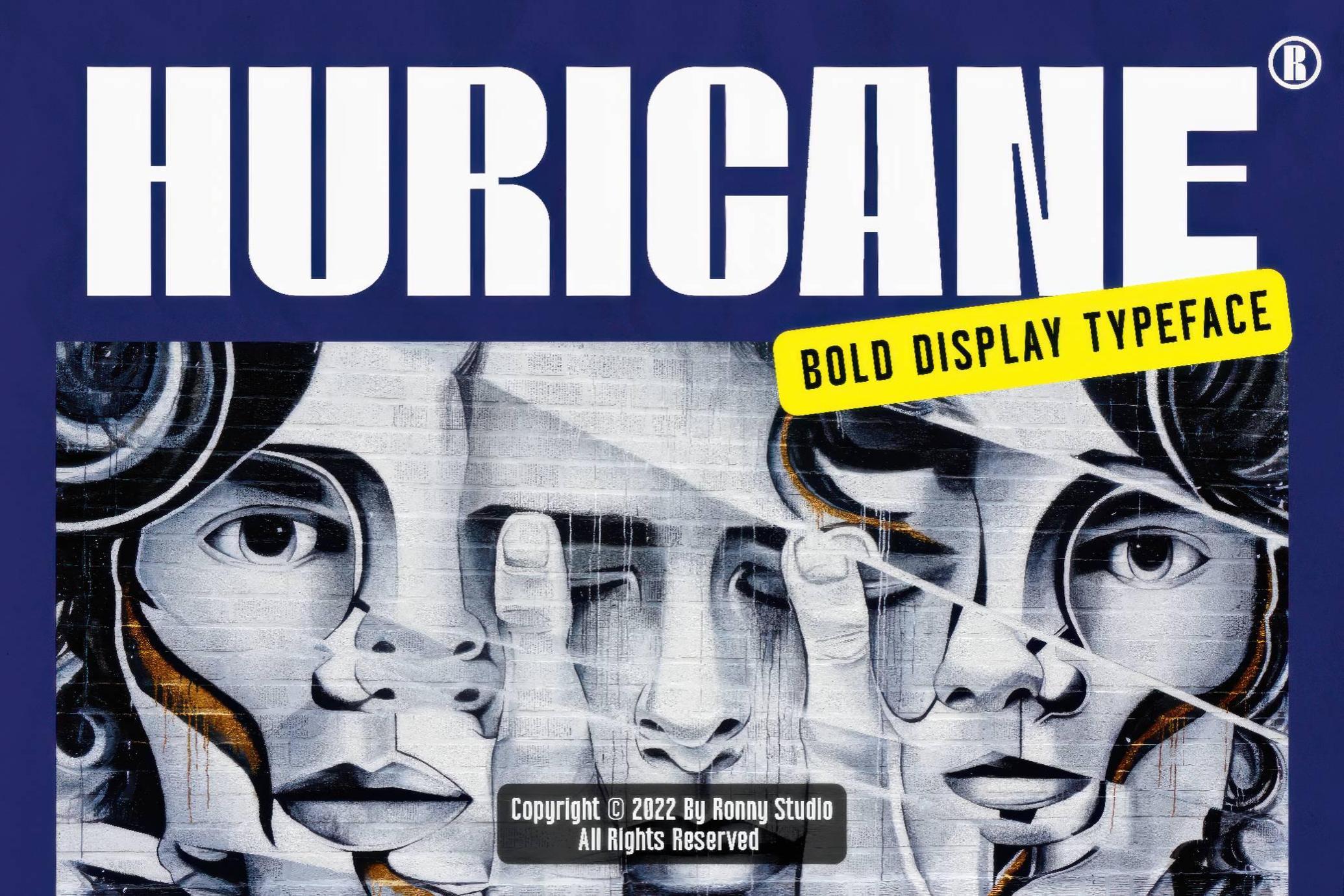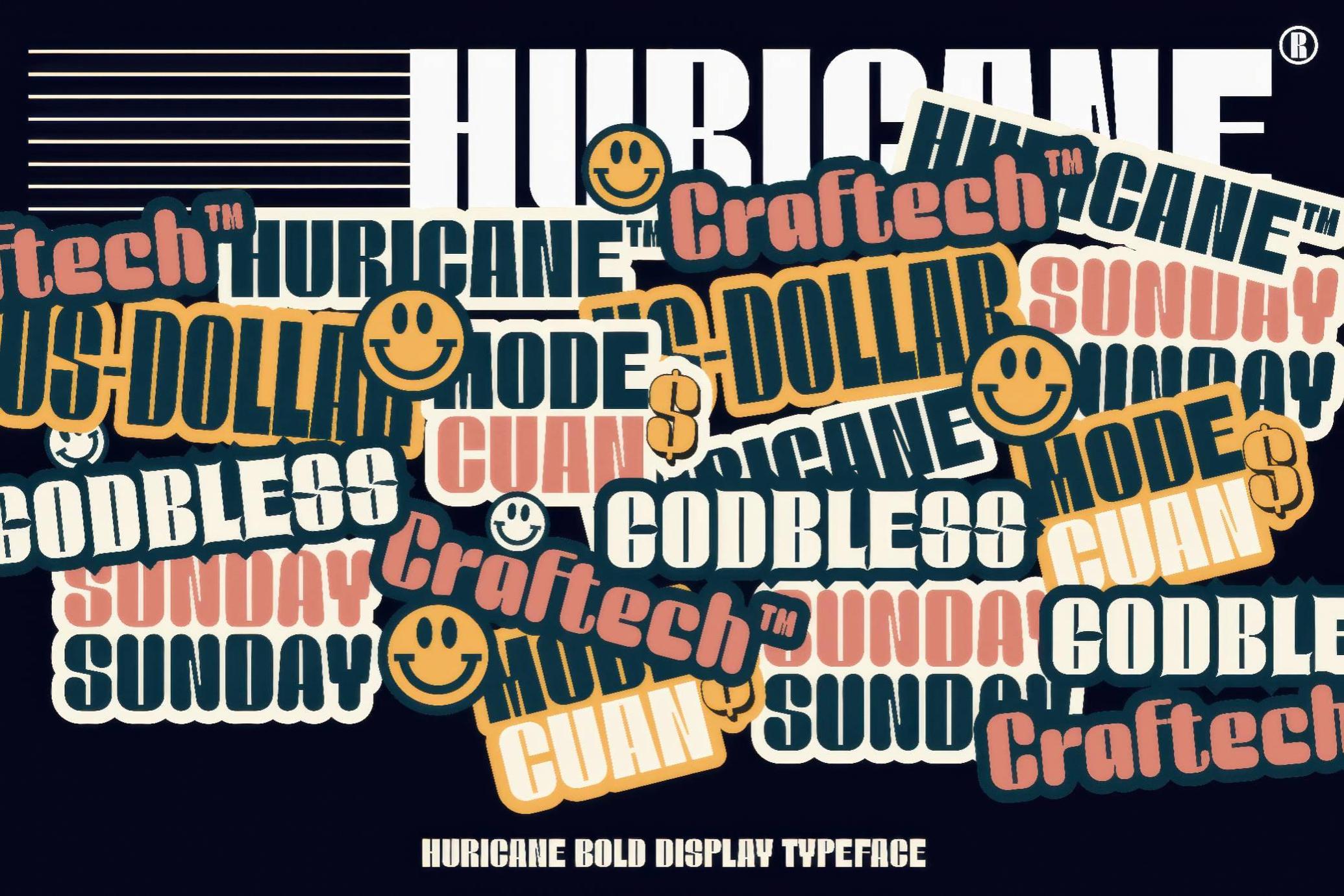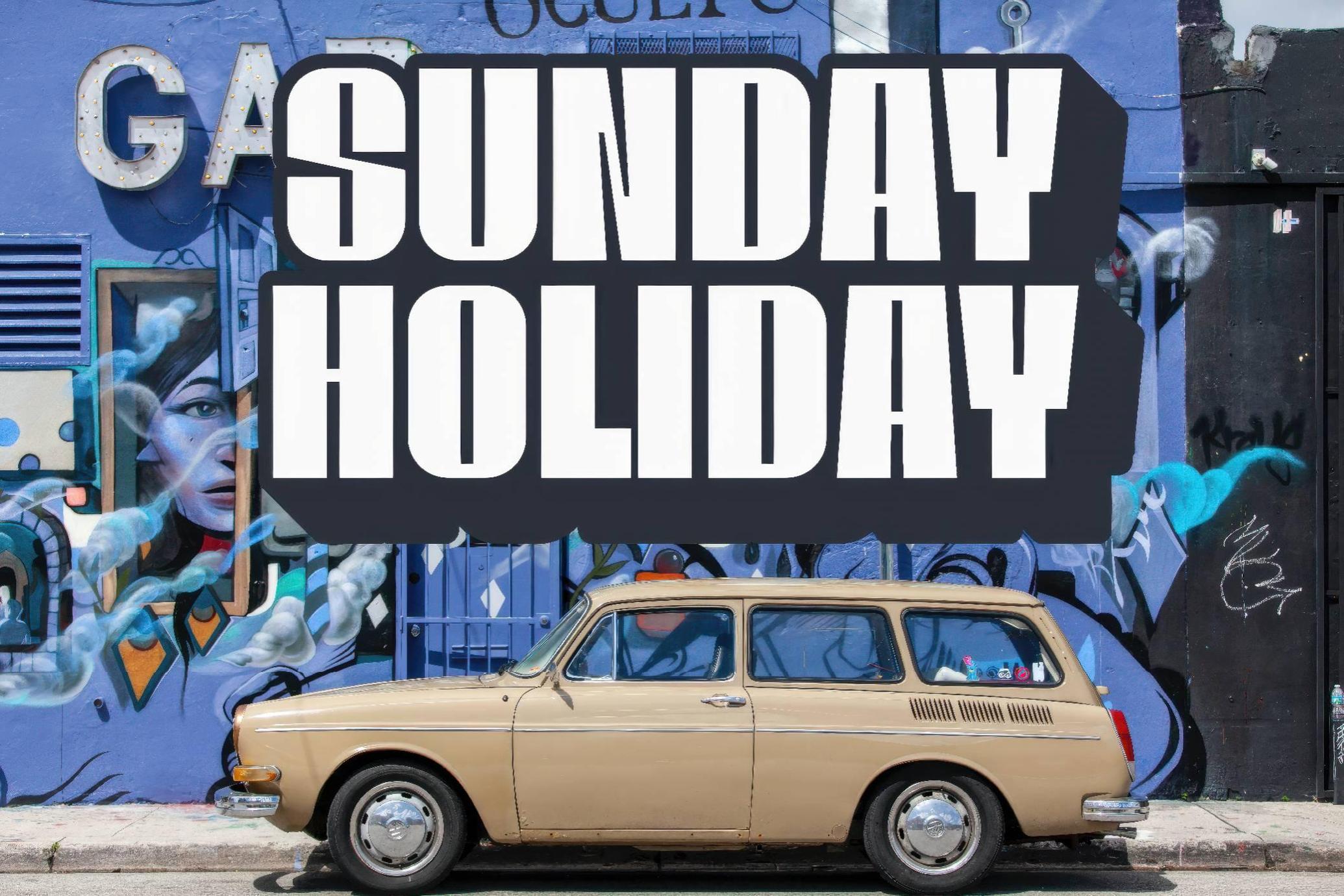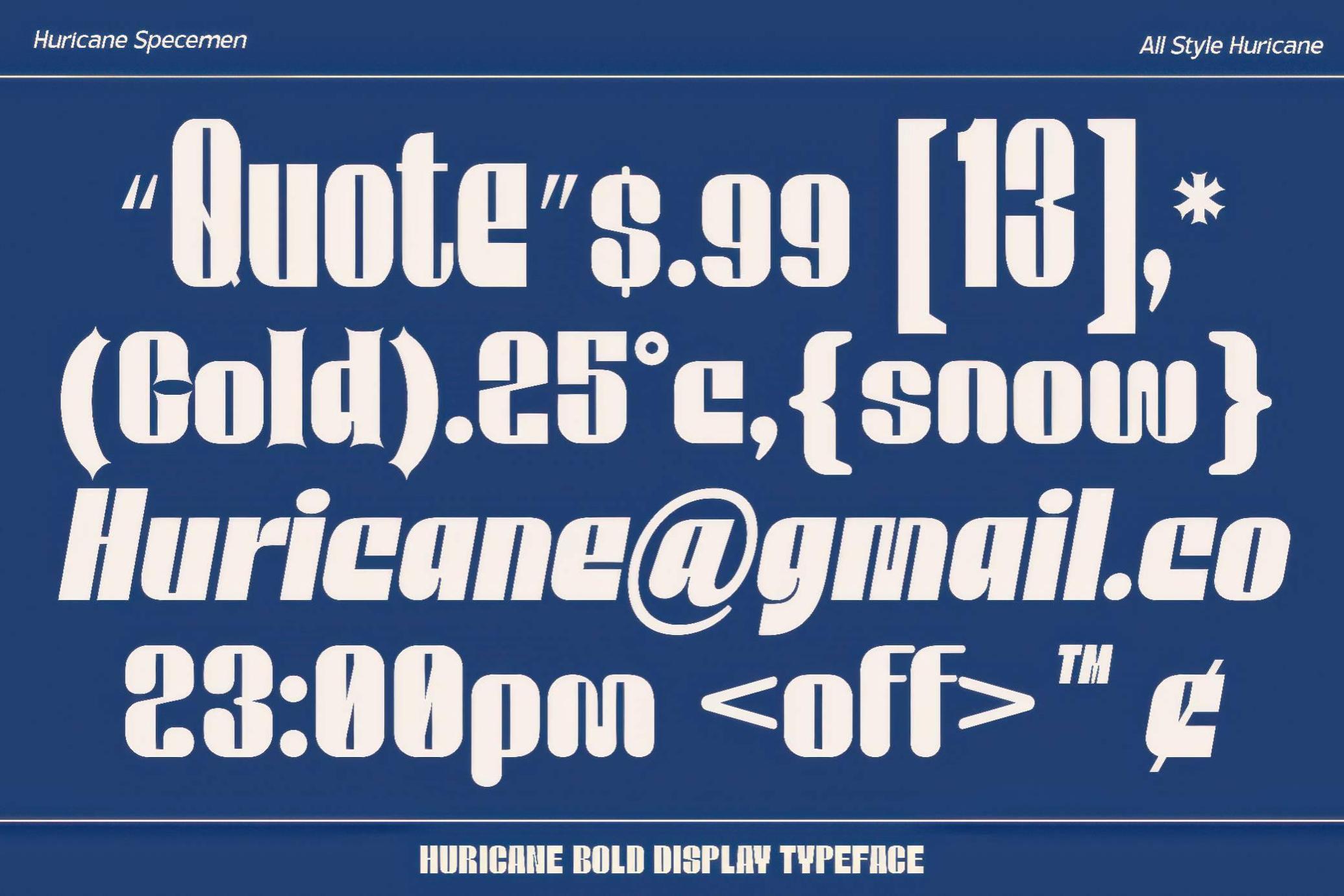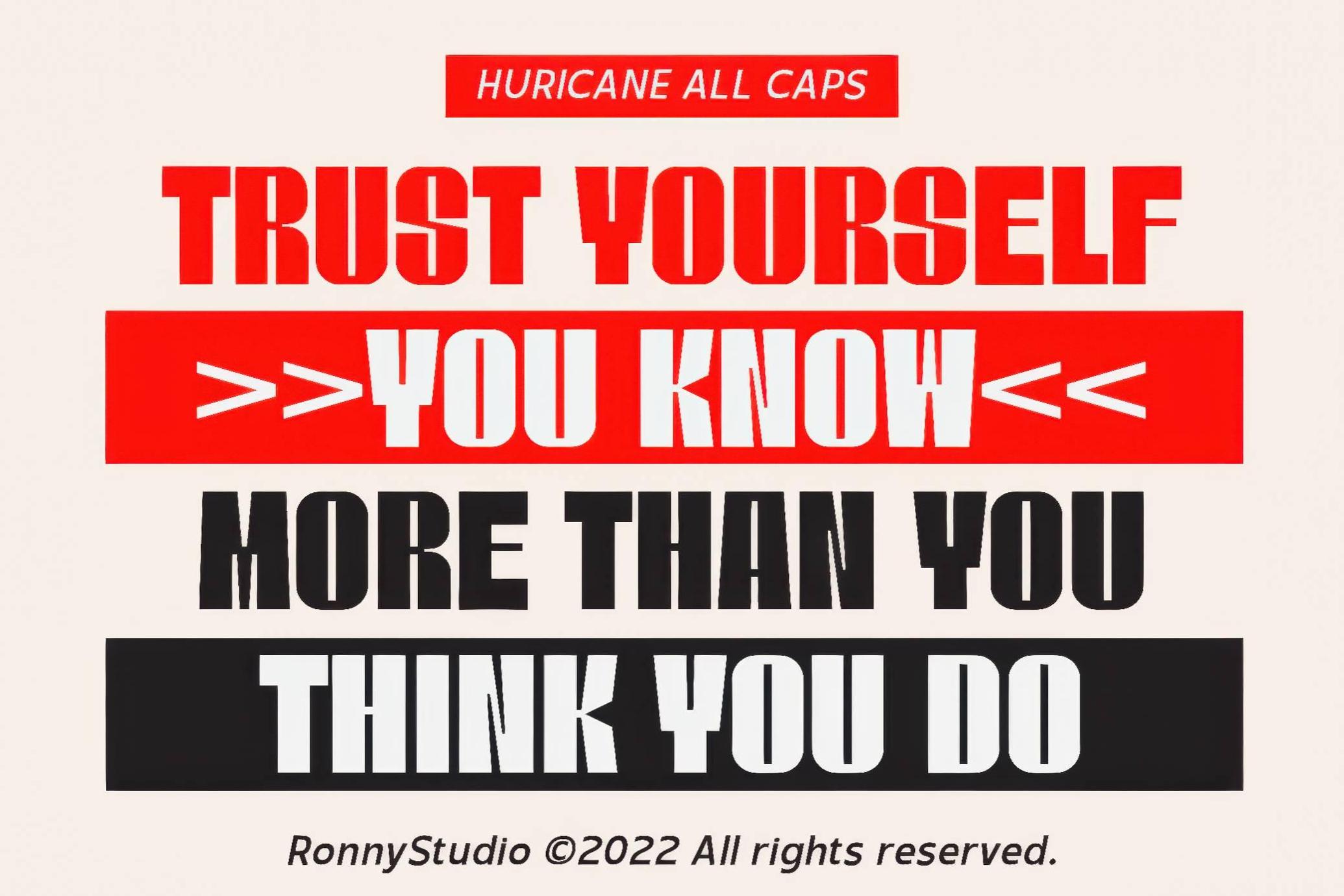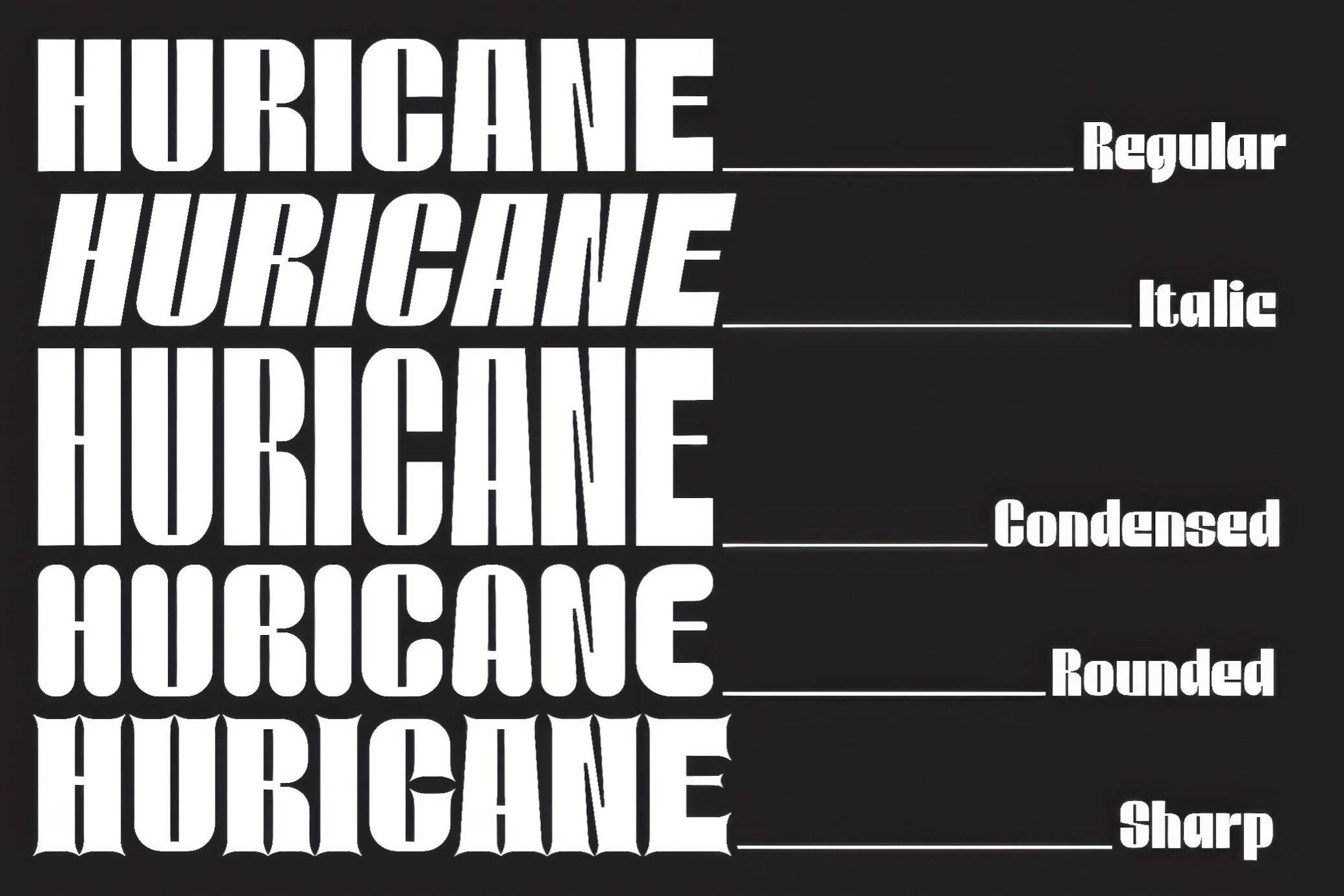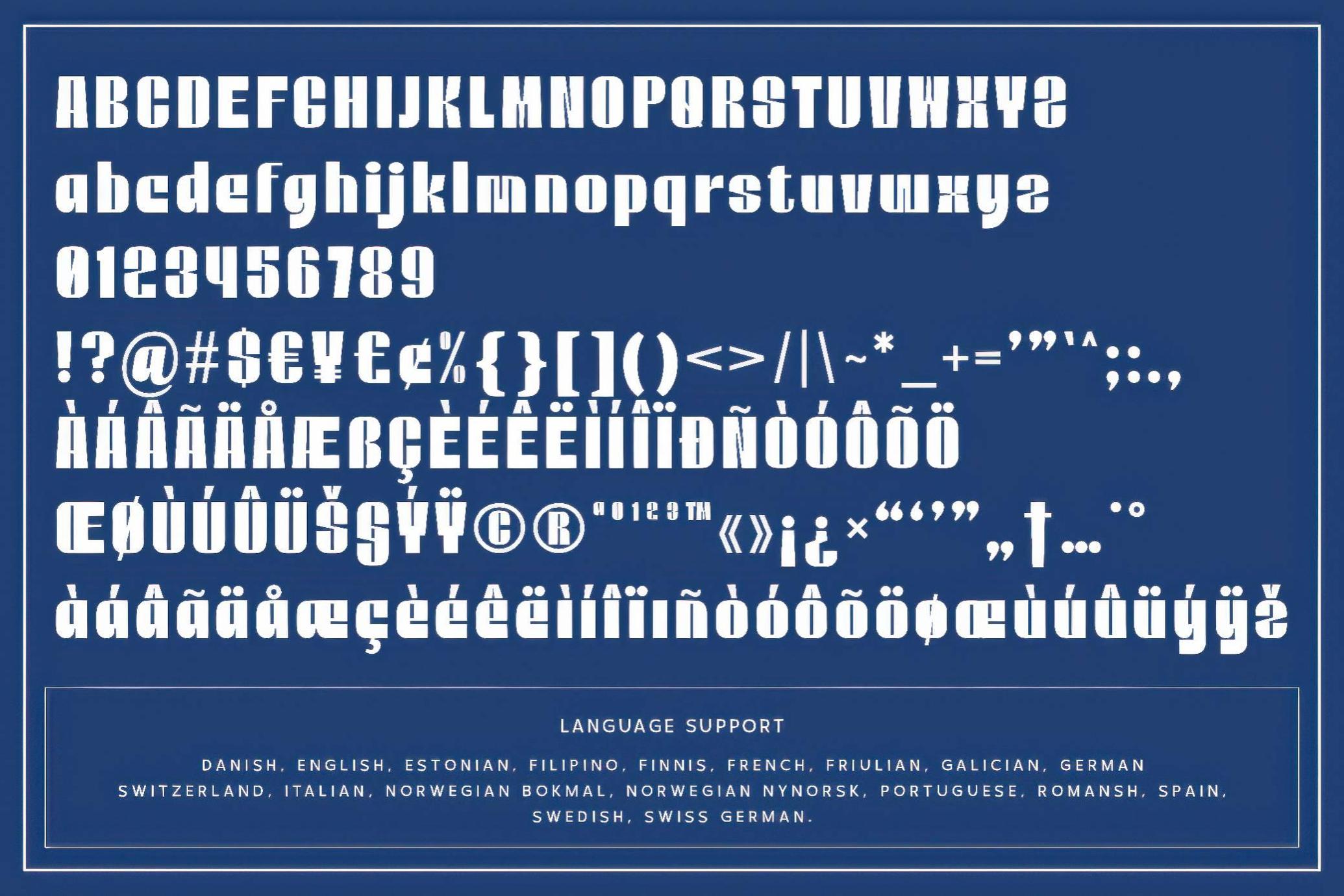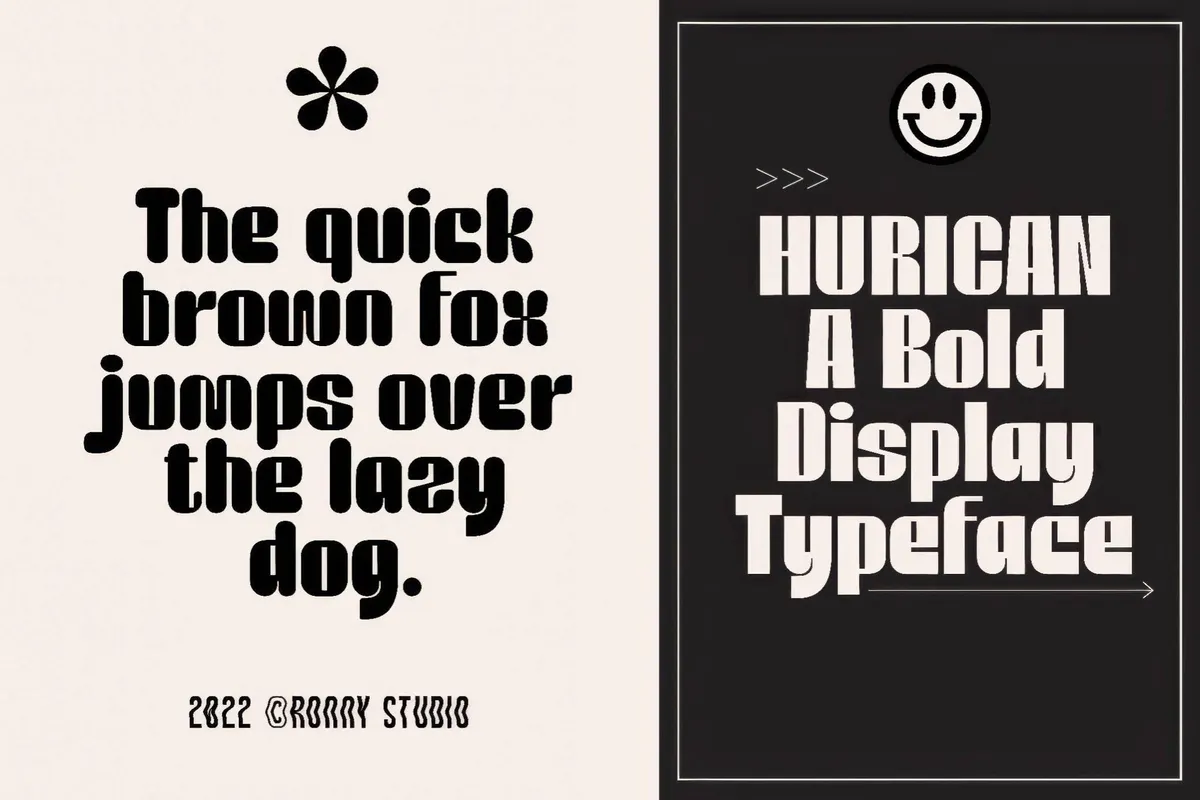
Huricane — Bold Display Typeface
Condensed
Sharp
Round
Huricane
Huricane is what happens when brutalist grids meet retro sci-fi signage and decide to party. With its geometric square-cut shapes and monolithic stance, this typeface brings a presence to anything from music artwork to packaging, brand identities, or editorial layouts. The full type system includes Regular, Italic, Condensed, Rounded, and Sharp styles. The Sharp version playfully disguises itself as a serif — unexpected, a little quirky, and strangely endearing. The set of glyphs provides uppercase, lowercase, numbers, punctuation, ligatures, alternates, and multilingual support.